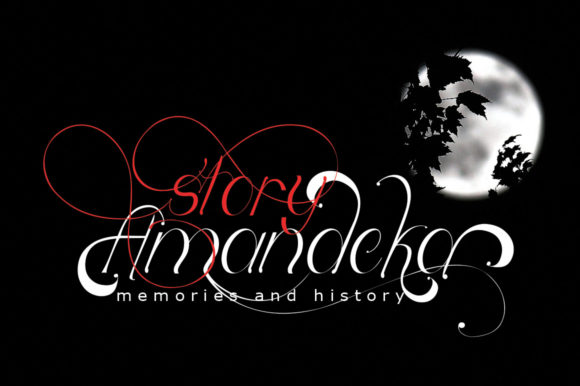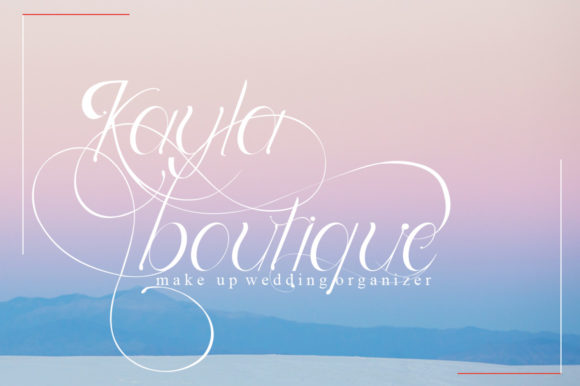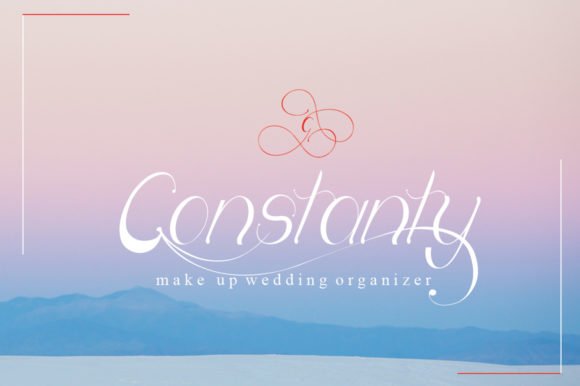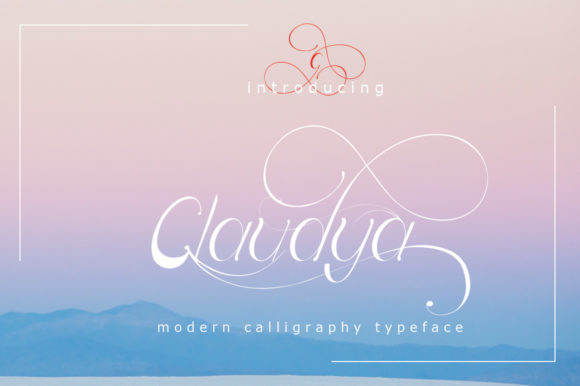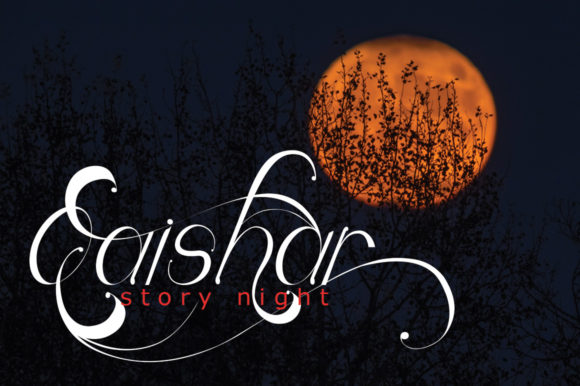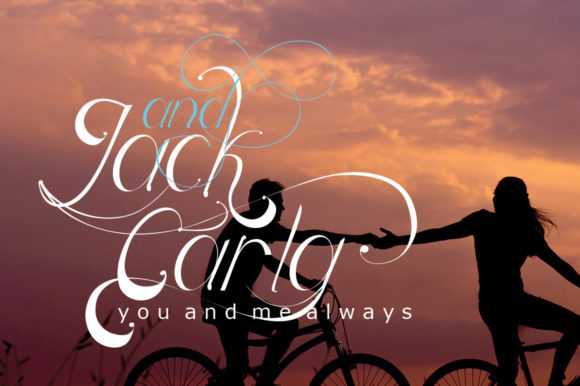
Discover the Elegance of Claudya Font: A Sweet Calligraphy Script for Your Designs
Are you a designer or crafter looking for a font that can add a touch of elegance and femininity to your projects? Look no further than the Claudya Font. This beautiful calligraphy script is perfect for a variety of design applications, from wedding invitations and branding materials to digital graphics and crafts.
The Claudya Font: A Sweet Calligraphy Script
The Claudya Font is a sweet calligraphy script that is sure to capture the hearts of designers and crafters alike. Its flowing lines and delicate curves give it a romantic and whimsical feel that’s perfect for creating beautiful designs. Whether you’re looking to create a stunning wedding invitation, a gorgeous logo, or a captivating social media graphic, the Claudya Font is the perfect choice.
Beautiful Swashes for Added Elegance
One of the standout features of the Claudya Font is its beautiful swashes. These elegant flourishes can be used to add a touch of sophistication and glamour to your designs. With a range of swashes to choose from, you can customize your text to create a truly unique and eye-catching design. Whether you’re looking to add a subtle touch of elegance or make a bold statement, the Claudya Font’s swashes have got you covered.
The Claudya Font is a versatile font that can be used for a wide range of design applications. Here are just a few ideas to get you started:
- Wedding Invitations: Create stunning wedding invitations that set the tone for a beautiful and elegant wedding.
- Branding Materials: Use the Claudya Font to create a cohesive brand identity that exudes elegance and sophistication.
- Digital Graphics: Create captivating social media graphics, blog headers, and other digital graphics that are sure to grab attention.
- Crafts: Use the Claudya Font to add a personal touch to your crafts, from handmade cards to DIY home decor.
Why Choose the Claudya Font?
So why choose the Claudya Font for your design projects? Here are just a few reasons:
- Elegant and Feminine: The Claudya Font has a distinctly feminine and elegant feel that’s perfect for creating beautiful designs.
- Highly Customizable: With a range of swashes to choose from, you can customize your text to create a truly unique design.
- Versatile: The Claudya Font can be used for a wide range of design applications, from wedding invitations to digital graphics.
Tips for Using the Claudya Font
Here are a few tips for getting the most out of the Claudya Font:
- Experiment with Swashes: Don’t be afraid to experiment with different swashes to find the perfect combination for your design.
- Pair with Other Fonts: The Claudya Font pairs beautifully with other fonts, so don’t be afraid to get creative and try out different combinations.
- Use for Headlines and Titles: The Claudya Font is perfect for headlines and titles, where its elegant and feminine feel can really shine.